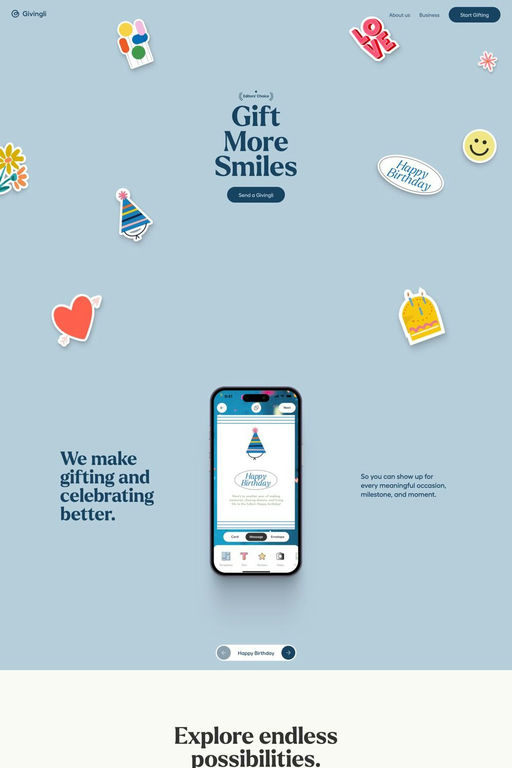
Hellix is a sans-serif typeface from Displaay Type Foundry.
Hellix is a mono-linear geometrical sans-serif font family. It was designed during an internship at the Type Design and Typography Studio at UMPRUM in Prague. At that time I fell in love with Paul Renner’s first sketch of Futura and I also explored stylistic sets, so I added a lot of strict and cold alternatives (“a, g, m, n, r, t, etc.”). I enjoyed having the possibility to create tensions between circular and square shapes. You will also find less geometrically based alternatives.